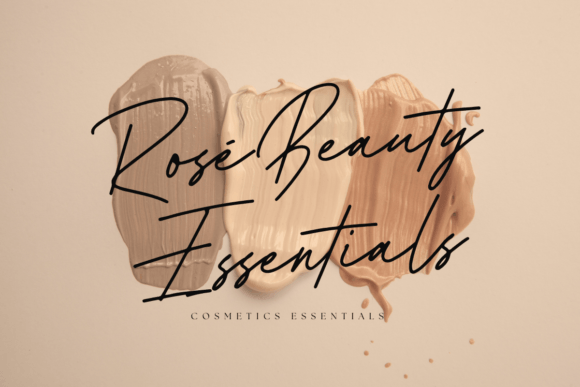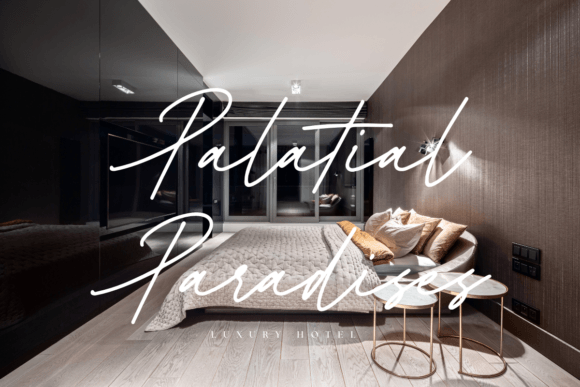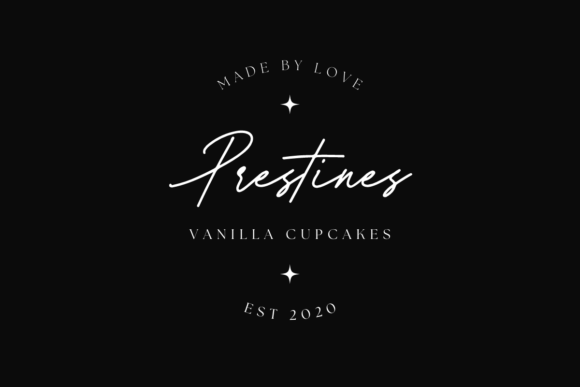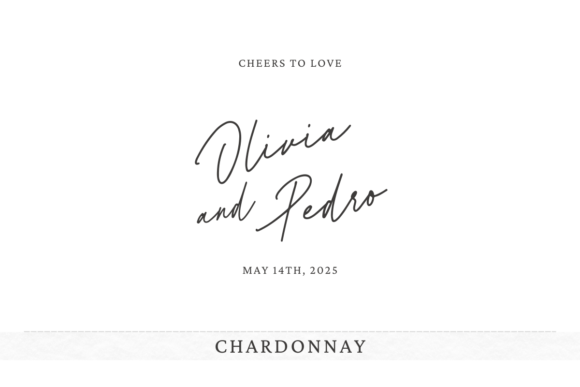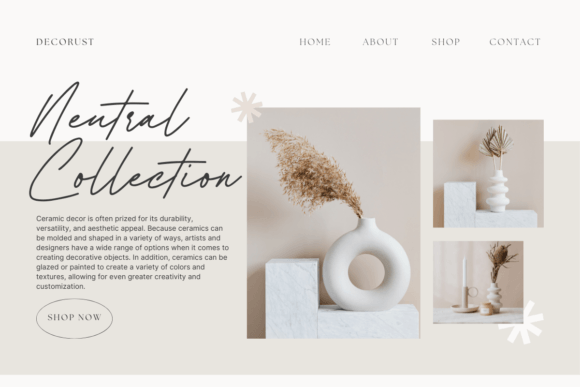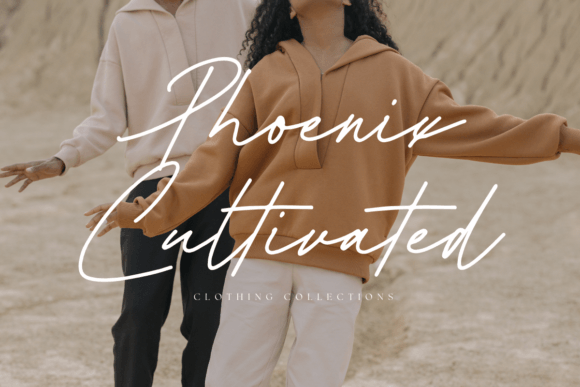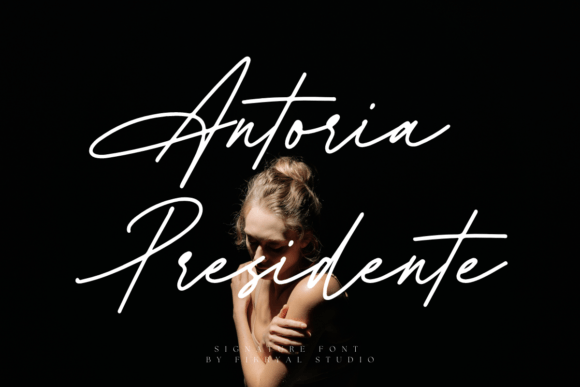
Introducing Antoria Presidente: The Epitome of Elegance in Typography
In the realm of typography, few fonts manage to convey the essence of luxury, sophistication, and class as effectively as Antoria Presidente. This signature font is a masterpiece of design, meticulously crafted to bring an air of elegance to any project it is a part of. Whether it’s high-end fashion branding, luxury hotel marketing materials, or high-quality product packaging, Antoria Presidente stands out as the perfect choice for designers and crafters aiming to make a lasting impression.
The Design Philosophy Behind Antoria Presidente
Antoria Presidente is not just a font; it’s an experience. Its design is rooted in the tradition of handwritten signatures, but with a modern twist that sets it apart from more conventional typefaces. The font features sweeping curves and thin strokes that create a dynamic sense of fluidity and movement. This characteristic gives Antoria Presidente a unique personality, making it both memorable and versatile.
A Blend of Vintage Elegance and Modern Simplicity
One of the defining features of Antoria Presidente is its tall, elongated letters, which are reminiscent of vintage calligraphy. This aspect of its design pays homage to the rich history of elegant handwriting and calligraphic traditions, evoking a sense of nostalgia and timelessness. However, what truly sets Antoria Presidente apart is its incorporation of clean, modern lines. This blend of the classic and the contemporary gives the font a broad appeal, making it suitable for a wide range of applications, from haute couture branding to bespoke product packaging.
Applications of Antoria Presidente
The versatility of Antoria Presidente is one of its most compelling attributes. Here are a few examples of how this exceptional font can elevate your projects:
- High-End Fashion Branding: In the competitive world of fashion, standing out is crucial. Antoria Presidente can add a touch of sophistication and glamour to fashion brand logos, advertisements, and marketing materials, helping to cultivate an image of luxury and exclusivity.
- Luxury Hotel Marketing Materials: For luxury hotels and resorts, creating an atmosphere of elegance and refinement is key to attracting high-end clientele. Using Antoria Presidente in marketing materials, such as brochures, websites, and social media, can help convey a sense of opulence and superior service.
- High-Quality Product Packaging: For brands that offer premium products, packaging is not just about protection; it’s an opportunity to make a statement. Antoria Presidente can add a classy touch to product labels, boxes, and bags, enhancing the unboxing experience and reinforcing the brand’s luxury status.
Why Designers and Crafters Love Antoria Presidente
Designers and crafters are always on the lookout for elements that can give their projects an edge. Antoria Presidente offers several advantages:
- Uniqueness: In a sea of generic fonts, Antoria Presidente stands out for its distinctive look, ensuring that projects don’t go unnoticed.
- Versatility: Its elegant yet modern design makes it suitable for a wide range of projects, from digital media to print materials.
- Emotional Connection: The font’s luxurious feel can help create an emotional connection with the target audience, enhancing brand recall and loyalty.
Antoria Presidente is more than just a font; it’s a statement of luxury, elegance, and sophistication. Its unique blend of vintage charm and modern simplicity makes it an invaluable asset for designers and crafters looking to elevate their projects. Whether you’re working on high-end fashion branding, luxury hotel marketing materials, or premium product packaging, Antoria Presidente is sure to bring a touch of class and refinement that sets your work apart.